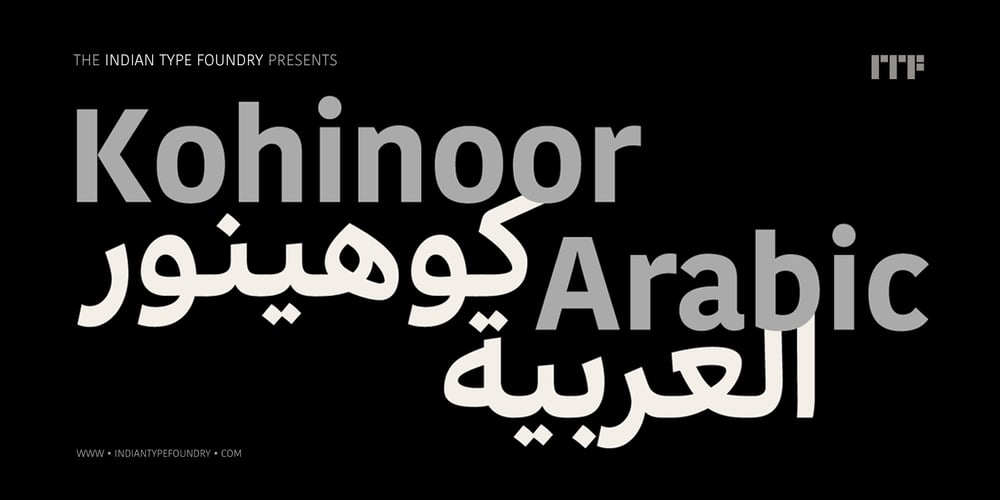
Kohinoor Arabic Font Family was designed by Satya Rajpurohit, Bahman Eslami and published by Indian Type Foundry. Kohinoor Arabic contains 10 styles and family package options. Kohinoor Arabic is part of Kohinoor Multiscript, a sans serif super family covering many of Indias official writing systems. The typeface is ideal for text-heavy multilingual projects, including corporate design; editorial design; electronic-embedding in apps; navigation and signage systems; product instruction manuals; television subtitling; or UI/UX. Kohinoor Arabics clear, inviting, and easy-to-read letterforms are drawn in the Naskh style, with large and open counters. The vowel mark shapes arent fussy. Stroke contrast is low, but there is still some modulation at junctures, keeping typographic color from getting too dark. Many strokes begin or end with lightly-sheared lines; these subtle angles add a trace of the calligraphers hand back into the generally-static language of sans-serif-style designs. Kohinoor Arabic includes all of the glyphs necessary for setting Arabic, Persian, and Urdu, as well as several other languages written with the Arabic script.